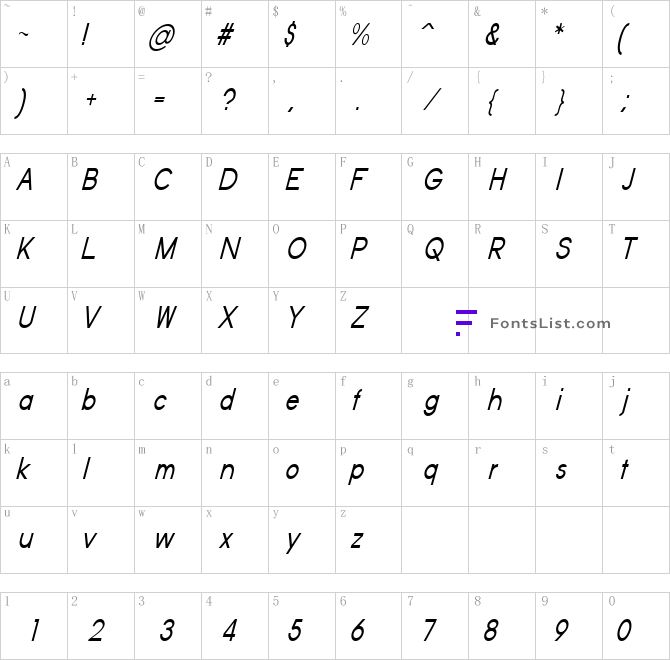
Advantage-ThinOblique.ttf is a very beautiful artistic font, Advantage-ThinOblique.ttf is widely used in the design and printing of various books and pictures,Advantage-ThinOblique.ttf has a strong visual impact,Advantage-ThinOblique.ttf is a commonly used font in newspapers, magazines and books, and is used in posters, e-commerce Poster design, store design, logo design, font design and other fields.Advantage-ThinOblique.